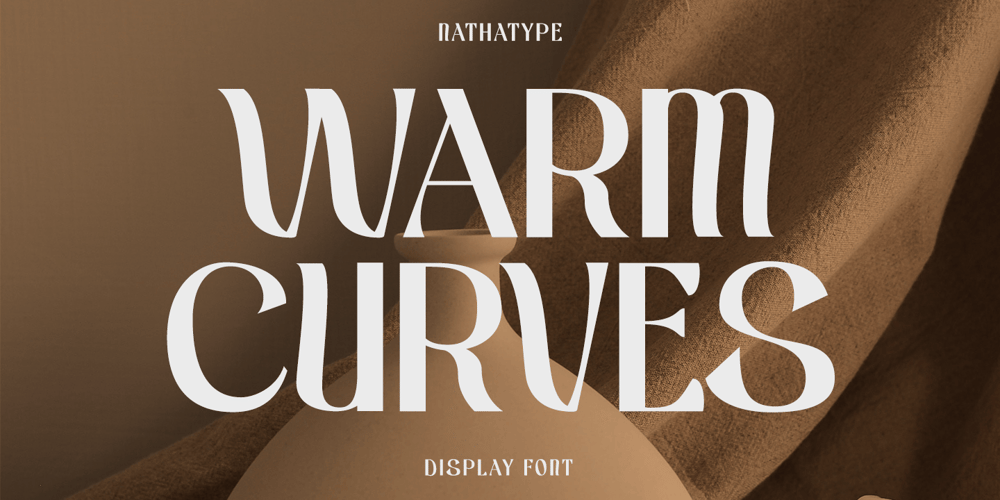
Warm Curves Font Family was designed by Donis Miftahudin and published by Nathatype. Warm Curves contains 1 styles and family package options. Most traditional display fonts are old-fashioned and hard to read in small sizes and are not applicable for any contexts in which you need to deliver messages to the audience clearly. Therefore, think about a beautiful, clean, legible modern font which is multipurpose and applicable anywhere along with the pretty serif style.Warm Curves is a display serif font to meet your needs. This elegant, modern, legible display serif font is perfectly applicable to formal, serious contents. It looks more stylish and has its own protruding characters to strengthen the points delivered. Furthermore, this display serif font is legible due to the thick, regular serif to ease readers to recognize every letter accurately. For that reason, you can use this font for any text length and size due to its great legibility. Also enjoy interesting features available in this font.Features: Alternates Multilingual Supports PUA Encoded Numerals and Punctuations Warm Curves fits best for various design projects, such as brandings, posters, banners, logos, magazine covers, quotes, headings, printed products, invitations, name cards, merchandise, social media, etc. Find out more ways to use this font by taking a look at the font preview.Thanks for purchasing our fonts. Hopefully, you have a great time using our font. Feel free to contact us anytime for further information or when you have trouble with the font. Thanks a lot and happy designing.